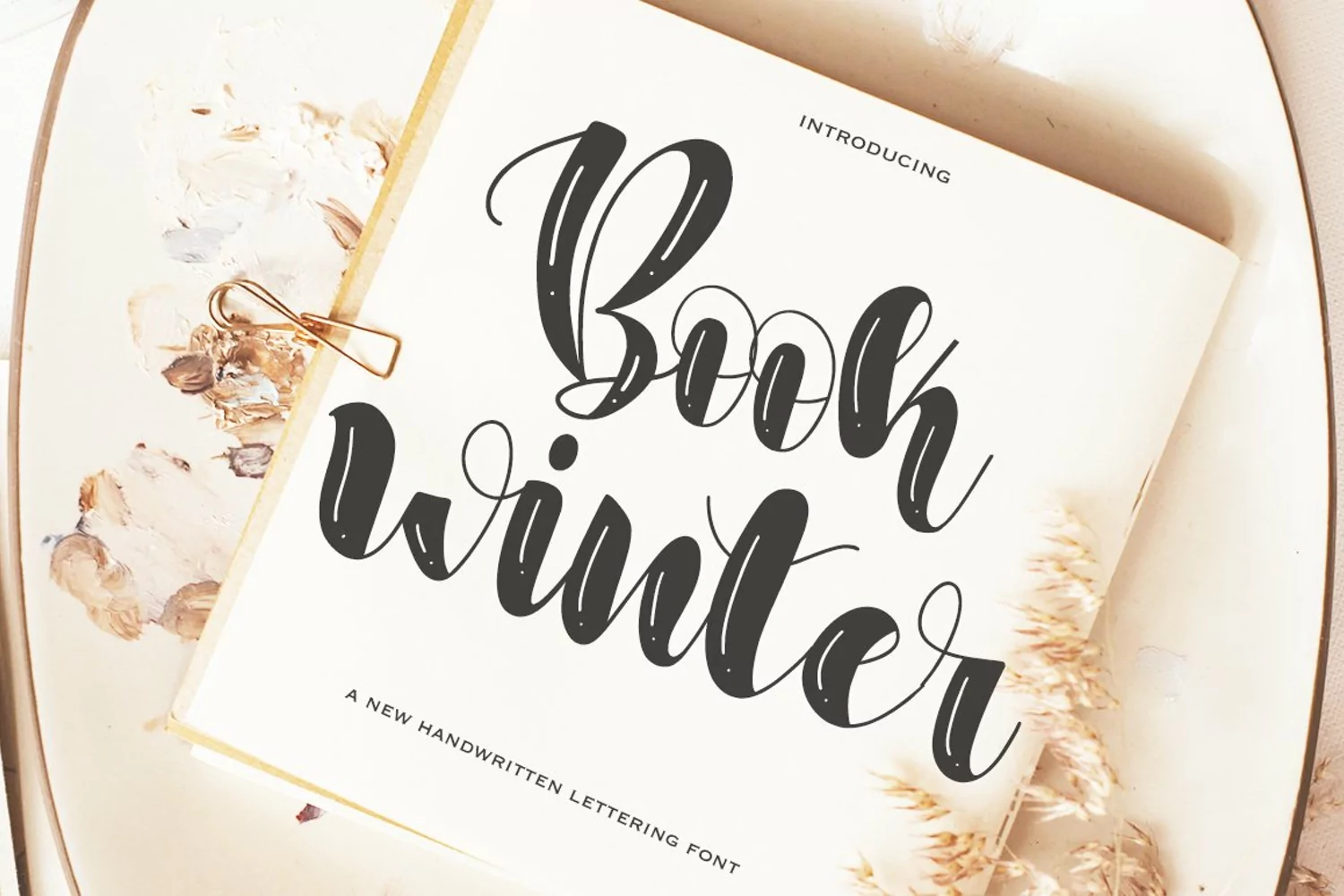
Book winter
Book winter handwritten font script. This font was designed by handwriting, and it has a modern and unique forms of calligraphy, the writing style is very natural. Book winter has a very unique style of calligraphy, it is very suitable for use in the work of modern design.
The Features of this fonts is:
* Standart ligatures
* Stylistic Alternates
Can be used for various purposes.such as headings, logos, wedding invitation, t-shirt, letterhead, lable, news, posters, badges etc. To enable the OpenType Stylistic alternates, you need a program that supports OpenType features such as Adobe Illustrator CS, Adobe Indesign & CorelDraw X6-X7.a font that made the hand by having the character up and down like a dancer. Jodilo has a very unique style of calligraphy, it is very suitable for use in the work of modern design.